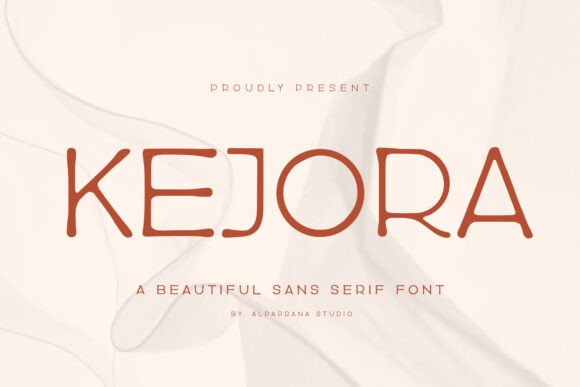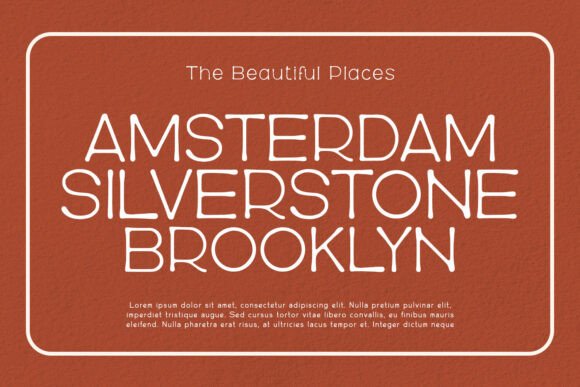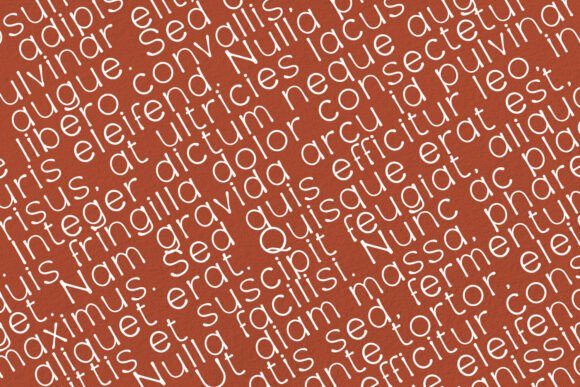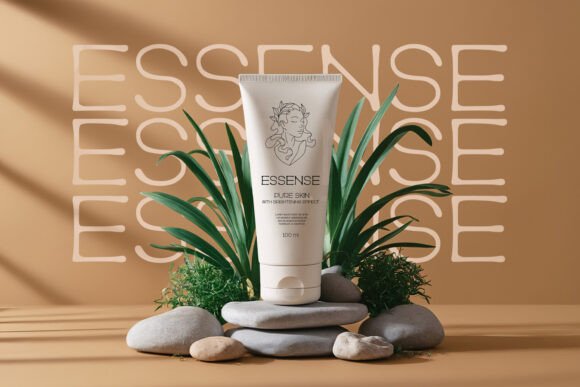
Kejora Font: Unique Modern Sans Serif for Branding & Logo Design
About the Kejora Font
Step up your design game with Kejora Font, a font that exudes confidence and style. Kejora is unique sans serif font with elegant and modern feels. It will be perfectly used for magazines, packaging, posters, shopping bags, t-shirts, book covers, photography, special events and other design projects.
Kejora’s elegant modernity makes it ideal for headlines, branding projects requiring a sophisticated touch, and packaging design where visual impact is key. It also excels in short-form content such as posters and signage. However, its refined details might become less legible in smaller sizes or extended body text. Avoid using Kejora for lengthy paragraphs, UI elements requiring high readability, or applications needing a highly neutral aesthetic.
Pairing Kejora effectively depends on the desired emphasis. For a classic yet contemporary feel, consider pairing it with a warm serif like Garamond or a geometric sans-serif like Futura. To achieve a more playful and approachable brand identity, a rounded sans-serif like Lato or a script font with a similar level of refinement could be used.
Kejora projects a personality of sophisticated boldness. It’s modern but not overly trendy, conveying confidence and a sense of quality without being aloof or overly serious.
Kejora Font Usage Examples
Kejora Font Example